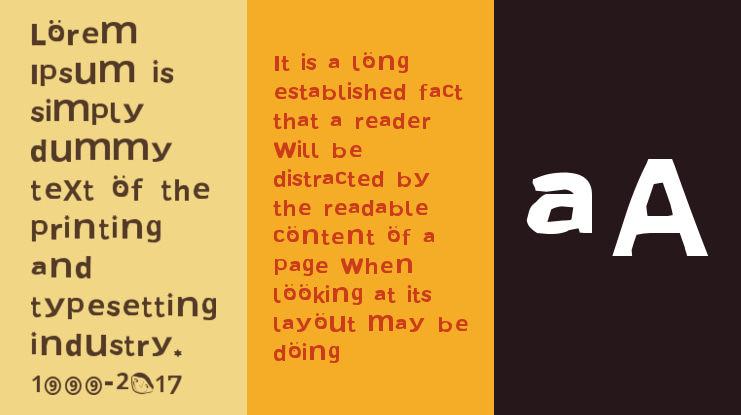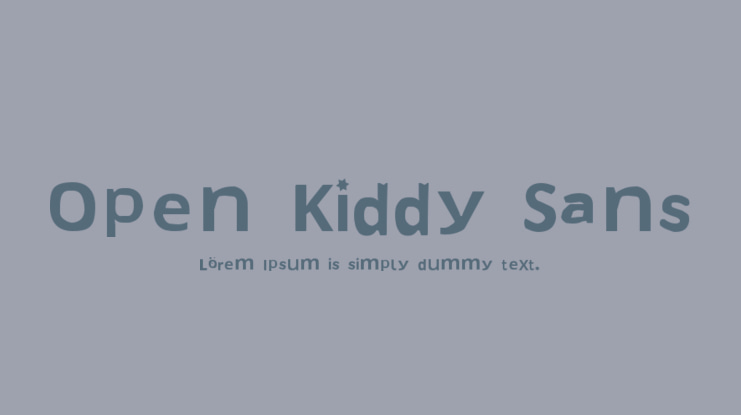
Open Kiddy Sans Font
This is Open Kiddy Sans. With the success of Open Shqip Sans, here is the second one that is based on Montserrat and Open Sans. I made the font "Open Kiddy Sans" for everyone.